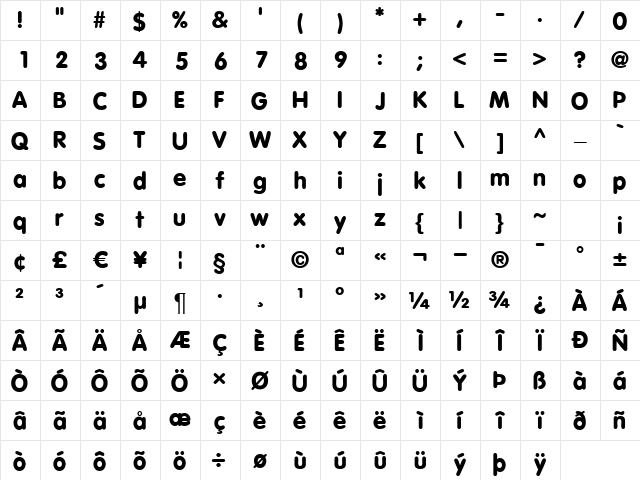
Vag-Black Regular
Design Context for Vag-Black Typeface
Vag-Black takes a measured approach to typography — its balanced proportions and neutral character make it a reliable workhorse for both digital and print work.
Pro Tip: Use Vag-Black in both headline and body roles to test its range before committing to a single application.